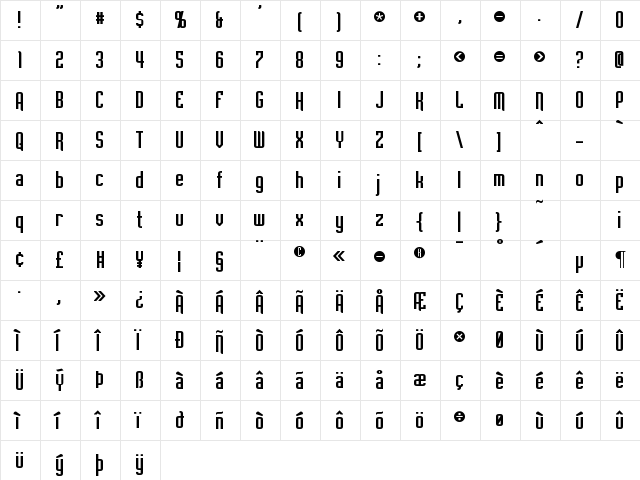
Empanada Regular
| Designer | Neale Davidson |
Design Context for Empanada Typeface
Empanada offers clean, dependable letterforms without strong stylistic allegiance, making it a practical choice for designers who need flexibility.